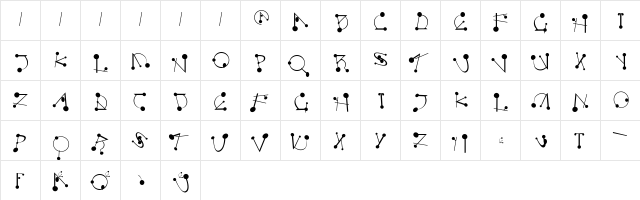
StrokesNBullets Regular
Design Context for StrokesNBullets Typeface
StrokesNBullets is a composed and adaptable typeface that performs quietly and consistently across a wide range of design contexts.